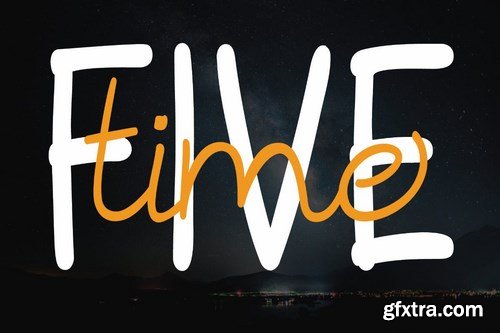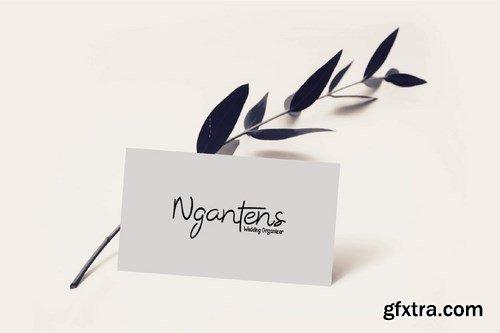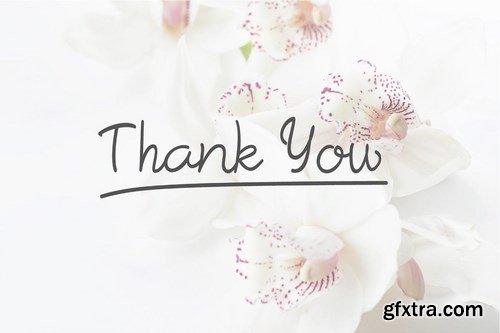
Morella Script is a family script font designed with carefully handcrafted. Also suitable for branding, T-shirt, Wedding Invitation, Classic Design, Logotype, and any project. With two style make you easier to design everythings.